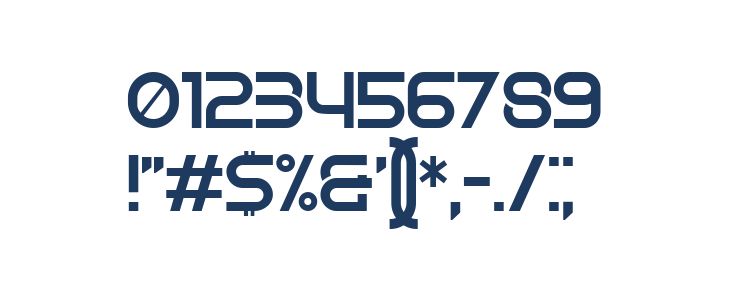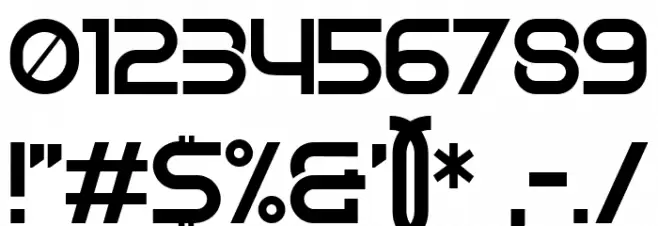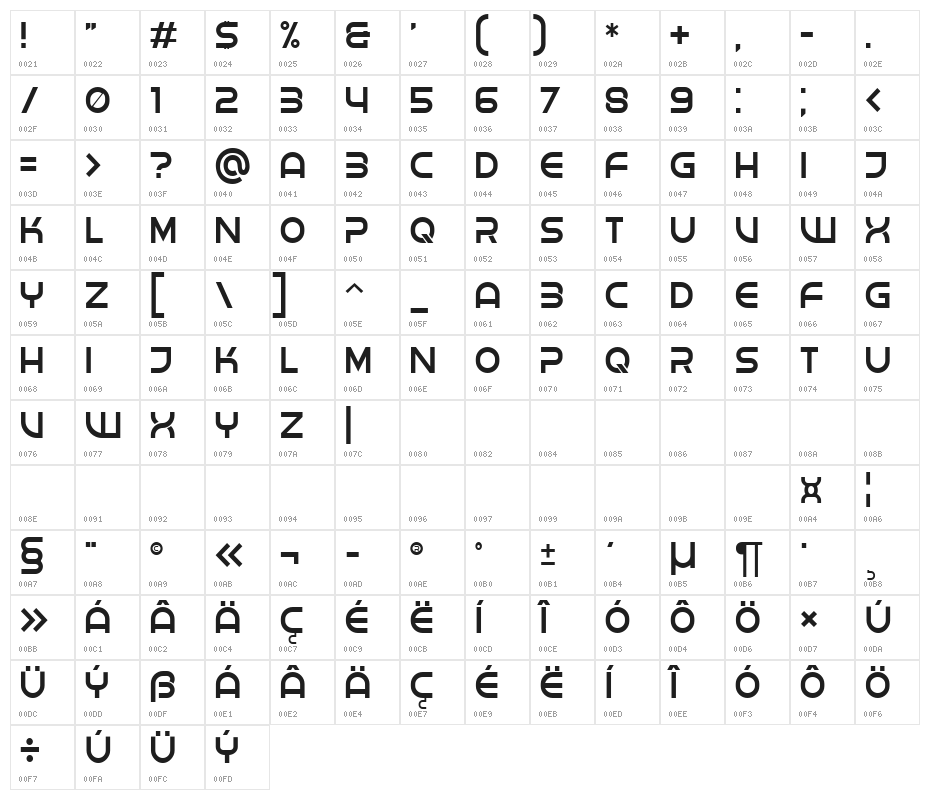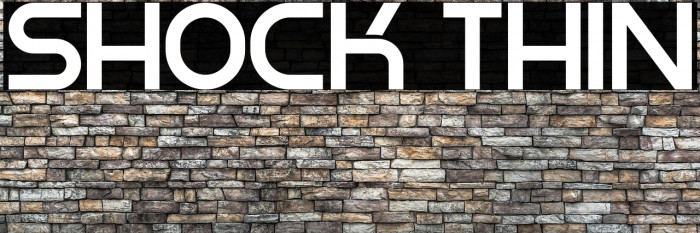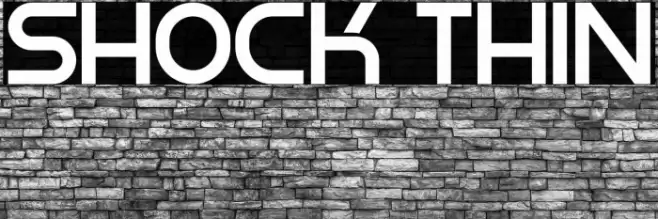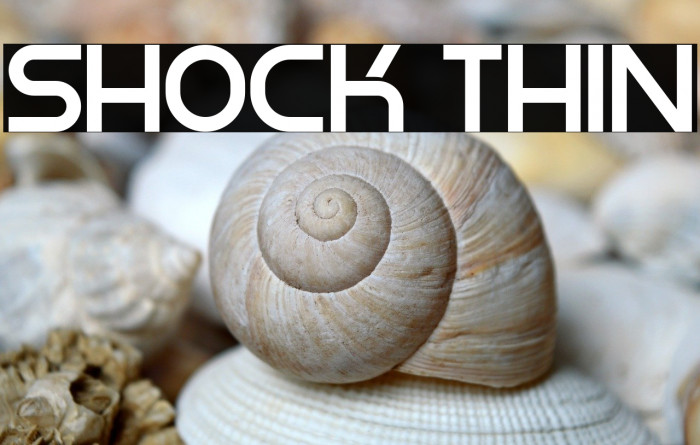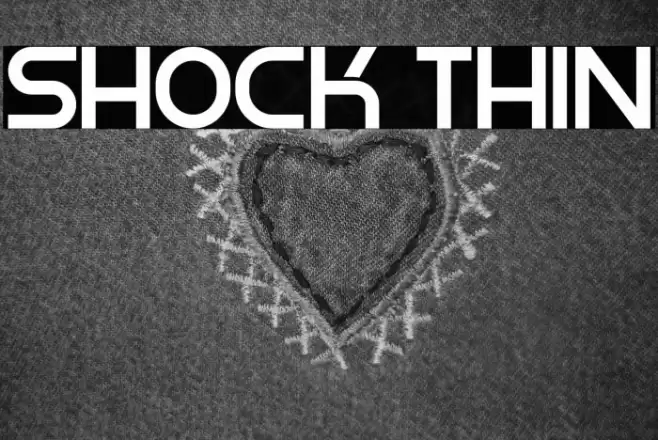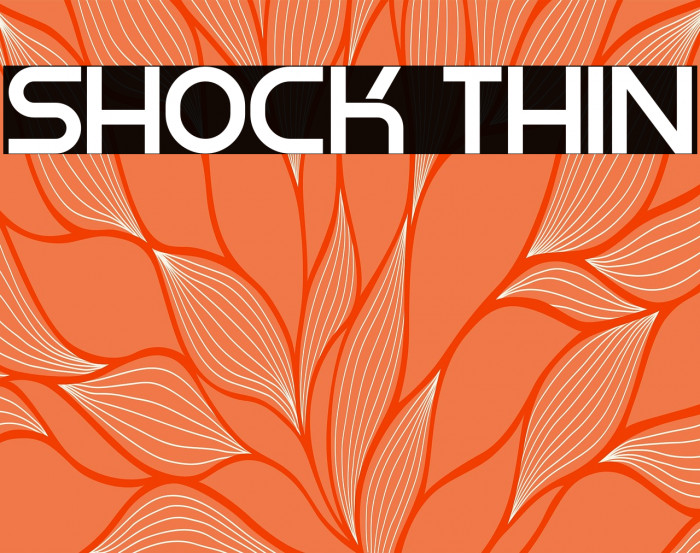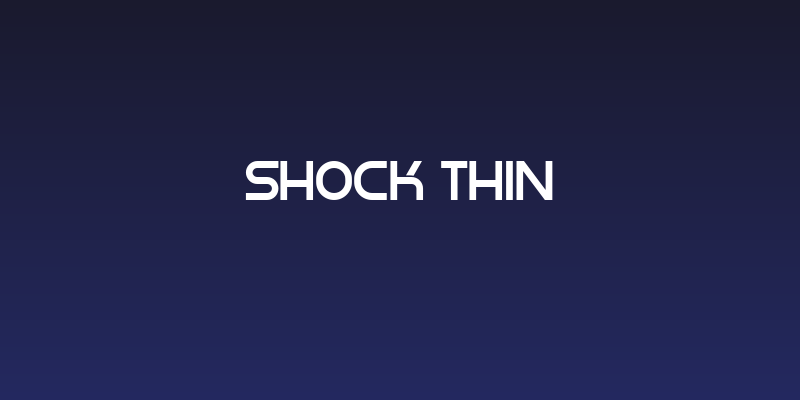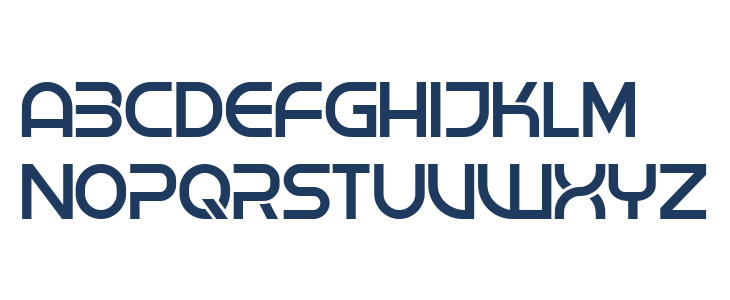
Shock Thin Font
Shock Thin Description
This font features a modern, geometric design with a futuristic flair. The characters are constructed with bold, clean lines and sharp angles, creating a sense of precision and technology. The uppercase letters are particularly striking, with a consistent height and width that gives the font a uniform appearance. The numerals and special characters maintain the same stylistic approach, ensuring cohesion across all elements. This font is ideal for projects that require a contemporary and cutting-edge look, such as technology branding, digital interfaces, and modern advertising.
| Proposed Projects | Ideal for technology branding, digital interfaces, and modern advertising. |